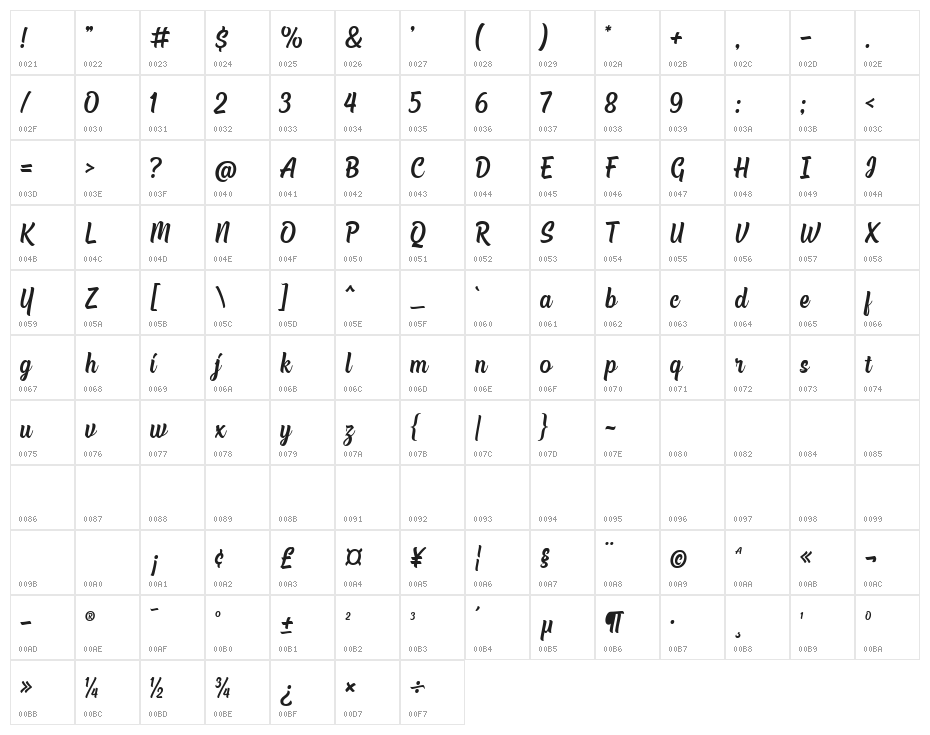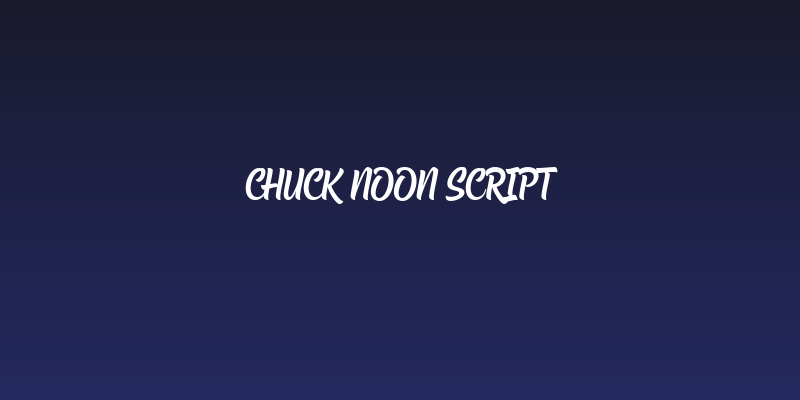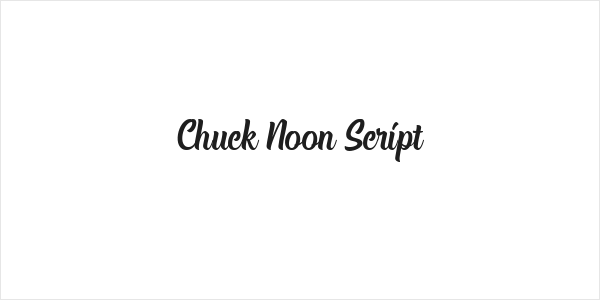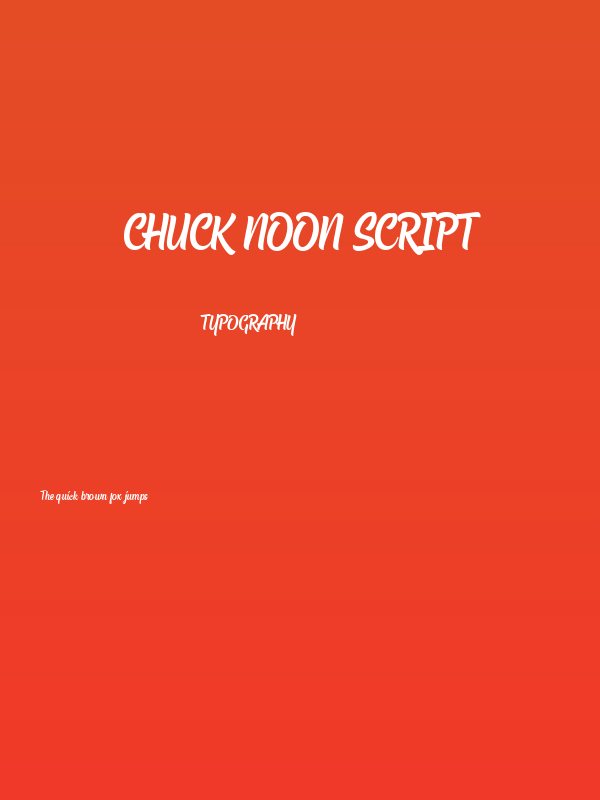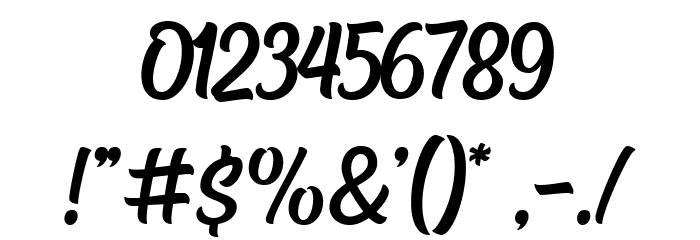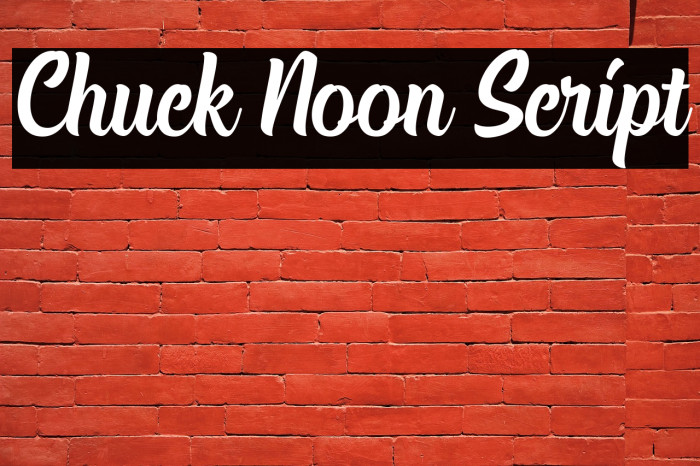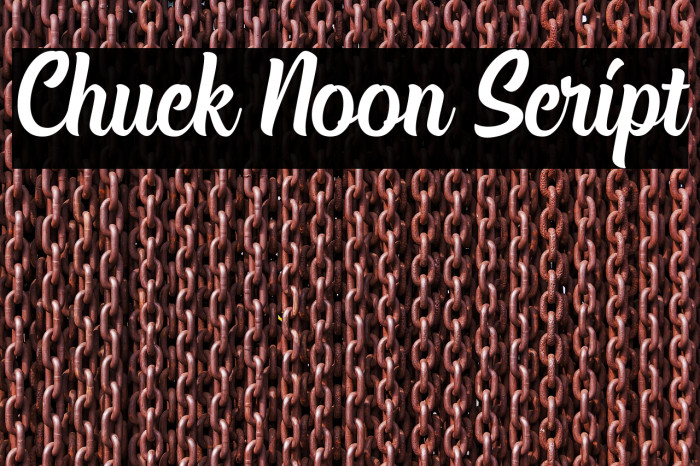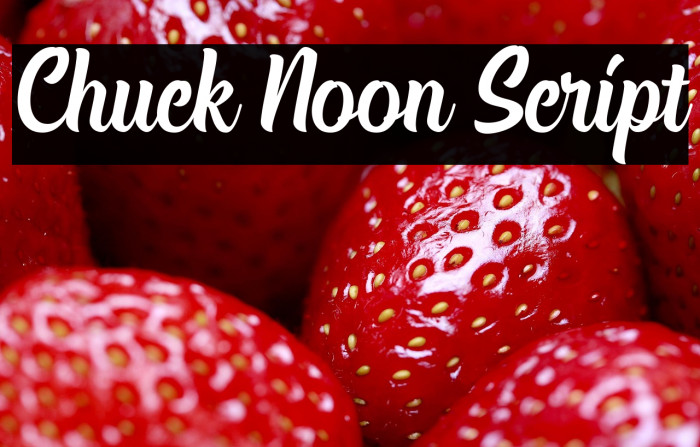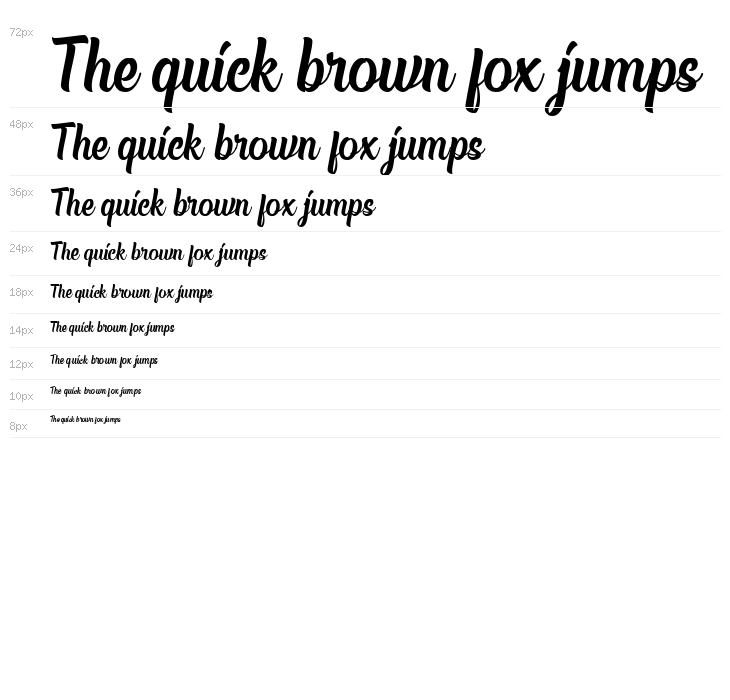
Chuck Noon Script Font
Chuck Noon Script Description
This font features a bold and expressive script style with a dynamic flow. The uppercase letters are slightly slanted, giving a sense of movement and elegance. The lowercase letters maintain a consistent rhythm, with smooth curves and rounded edges that enhance readability. The numerals are well-proportioned, matching the overall aesthetic of the font. Special characters are designed to complement the script style, adding versatility for various design needs. This font is ideal for projects that require a personal touch, such as invitations, branding, and creative headlines.
| Proposed Projects | Ideal for invitations, branding, creative headlines, and personal projects. |